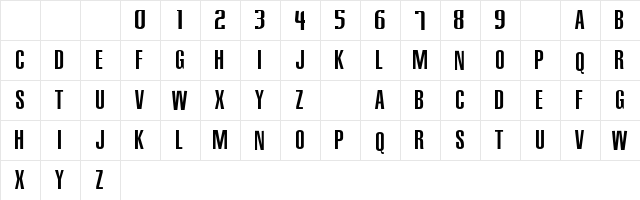
NBA Mavericks Regular
Design Context for NBA Mavericks Typeface
NBA Mavericks is a composed and adaptable typeface that performs quietly and consistently across a wide range of design contexts.
Pro Tip: Pair NBA Mavericks with a font of contrasting weight or personality to build a more expressive typographic hierarchy.